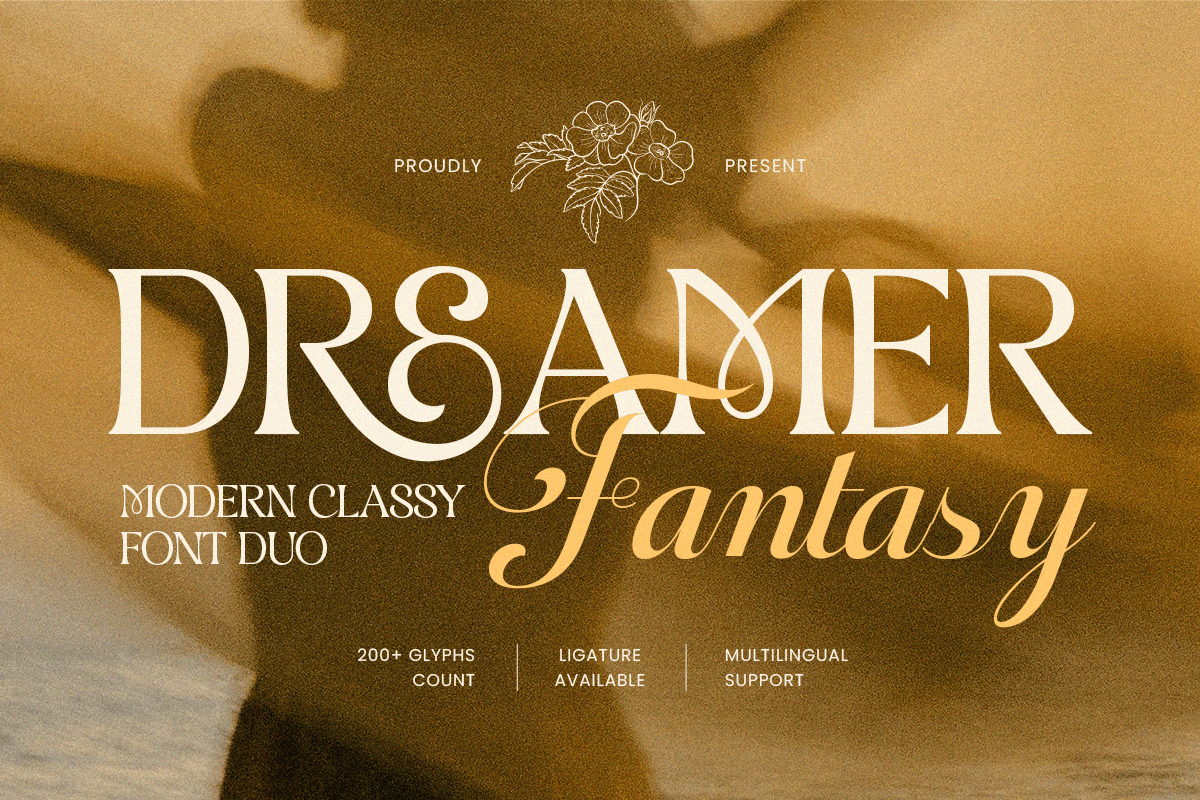
Dreamer Fantasy
-Modern Classy Duo Font
Dreamer Fantasy - Modern Classy Duo Font
DREAMER FANTASY is a modern classy duo font crafted to blend dreamy elegance with premium sophistication. This duo pairing is designed to give your layouts a complete, brand-ready system—one style for expressive, fantasy-forward statements and the other for clean, refined balance that keeps everything polished and readable.
Built for elevated branding, DREAMER FANTASY works beautifully across logos, wordmarks, editorial layouts, website headers, premium packaging, invitations, presentations, posters, and social media campaigns. Use the duo to create hierarchy and contrast: bold personality for hero titles, and classy clarity for supporting typography that keeps your design cohesive.
Whether you’re creating an aesthetic brand identity, a luxury boutique concept, a romantic product line, or modern editorial visuals with a fantasy touch, DREAMER FANTASY delivers a stylish duo foundation that feels enchanting, contemporary, and unmistakably premium.
Inspiration Behind DREAMER FANTASY
DREAMER FANTASY is inspired by modern luxury aesthetics mixed with dreamy fantasy storytelling—where soft elegance and refined structure meet to create a magical, high-end vibe. The design focuses on contrast, harmony, and classy rhythm to support premium branding and editorial design with an imaginative, romantic atmosphere.
DREAMER FANTASY Font Features:
• Modern classy duo: expressive display style + refined companion style
• Designed for strong hierarchy and cohesive brand identity systems
• Perfect for logos, wordmarks, headlines, and editorial layouts
• It's available with regular ligature serif and script font
• Dreamy personality with clean readability for modern design use
• Logo design, wordmarks, and modern brand identity systems
• Editorial layouts, magazine covers, lookbooks, and headlines
• Premium packaging, labels, invitations, and elegant stationery
• Website headers, presentations, and refined marketing layouts
• Social media campaigns, digital banners, and aesthetic visuals
Create enchanting premium visuals with DREAMER FANTASY—a modern classy duo font made for elegant, dreamy branding. ✨